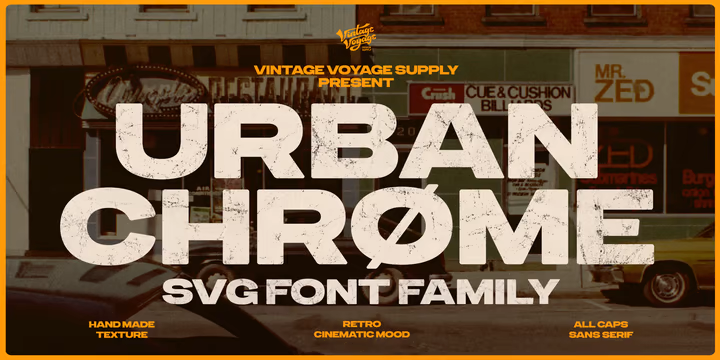
Urbanchrome Font Family
Introduce you the first SVG font in Vintage Voyage collection.
• Trendy all-caps cinematic sans in four styles. Inspired by 80s multimedia era typographic like your old VHS cassette package design in your mama’s house attic. Perfect choice for your movie titles, party flyers, exhibition identity or action style advertisement.
• Four styles: Clean, Roughen, Outline and SVG textured. SVG was made with Hand Made grunge texture.
• Multilingual.